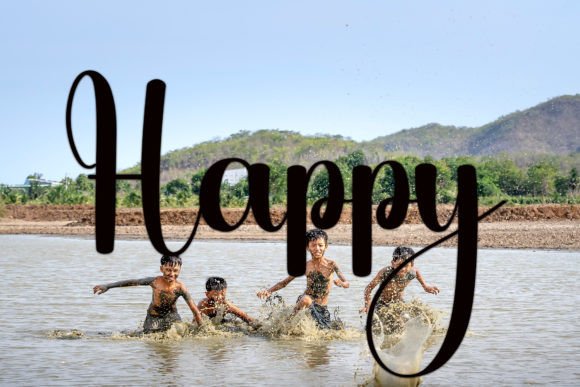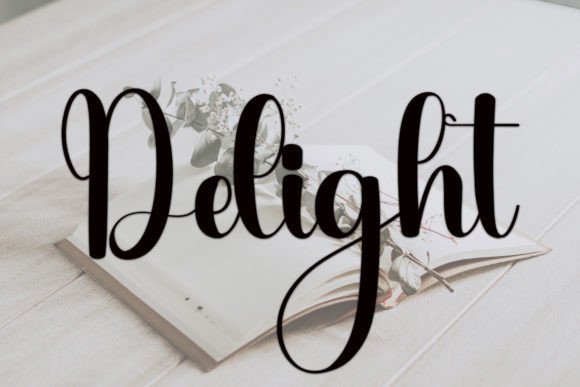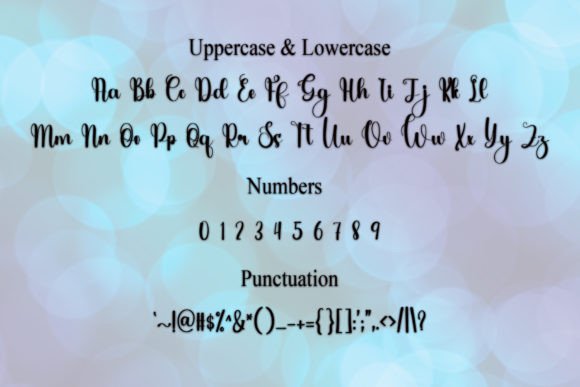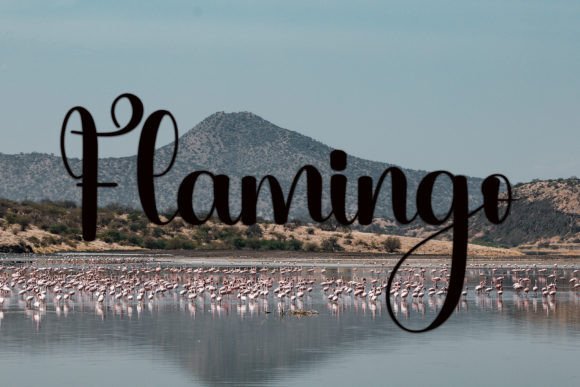
Daisy Font: Elevate Your Designs with a Cool, Simple, and Playful Handwritten Style
Are you tired of using the same old fonts in your designs? Look no further than the Daisy Font, a cool, simple, and playful handwritten font that’s incredibly versatile and sure to elevate your creative projects to new heights. In this article, we’ll dive into the world of Daisy Font, exploring its features, benefits, and uses, and showing you how to make the most of this amazing font.
What is Daisy Font?
Daisy Font is a modern, handwritten font that’s perfect for designers and crafters looking for a fresh and exciting way to add some personality to their work. With its clean lines, simple shapes, and playful flair, Daisy Font is the perfect choice for a wide range of designs, from branding and advertising to packaging and digital media.
Features of Daisy Font
So what makes Daisy Font so special? Here are just a few of its key features:
- Cool and Simple: Daisy Font has a calm and composed look that’s perfect for designs that need to convey a sense of serenity and sophistication.
- Playful and Handwritten: With its playful, handwritten style, Daisy Font adds a touch of personality and whimsy to any design.
- Incredibly Versatile: Whether you’re working on a logo, brochure, or social media graphic, Daisy Font is incredibly versatile and can be used in a wide range of designs.
- Easily Readable: With its clear and clean lines, Daisy Font is easy to read, even at small sizes.
Benefits of Using Daisy Font
So why should you choose Daisy Font for your next design project? Here are just a few of the benefits of using this amazing font:
- Adds Personality: With its playful, handwritten style, Daisy Font adds a touch of personality and whimsy to any design.
- Elevates Designs: Daisy Font has a way of elevating designs to the next level, making them more visually appealing and engaging.
- Perfect for Branding: With its unique and memorable style, Daisy Font is perfect for branding and advertising projects.
- Works Well with Other Fonts: Daisy Font works well with other fonts, making it easy to pair with other styles and create a unique look.
Uses of Daisy Font
So what can you use Daisy Font for? The possibilities are endless! Here are just a few ideas to get you started:
- Branding and Advertising: Use Daisy Font to create memorable logos, brochures, and social media graphics.
- Packaging: Add a touch of personality to your product packaging with Daisy Font.
- Digital Media: Use Daisy Font in your digital media projects, such as videos, podcasts, and blogs.
- Crafting and Scrapbooking: Add a personal touch to your crafting and scrapbooking projects with Daisy Font.
Tips for Using Daisy Font
Here are a few tips for getting the most out of Daisy Font:
- Experiment with Sizes: Try using Daisy Font in different sizes to create visual interest and hierarchy.
- Pair with Other Fonts: Don’t be afraid to pair Daisy Font with other fonts to create a unique look.
- Use in Combination with Images: Use Daisy Font in combination with images to add an extra layer of meaning and visual interest.
- Make it Your Own: Don’t be afraid to experiment and make Daisy Font your own by adding your own personal touches.
In conclusion, Daisy Font is a cool, simple, and playful handwritten font that’s perfect for designers and crafters looking to add some personality to their work. With its incredibly versatile style, Daisy Font can be used in a wide range of designs, from branding and advertising to packaging and digital media. Whether you’re looking to elevate your designs, add some whimsy, or simply try something new, Daisy Font is the perfect choice.